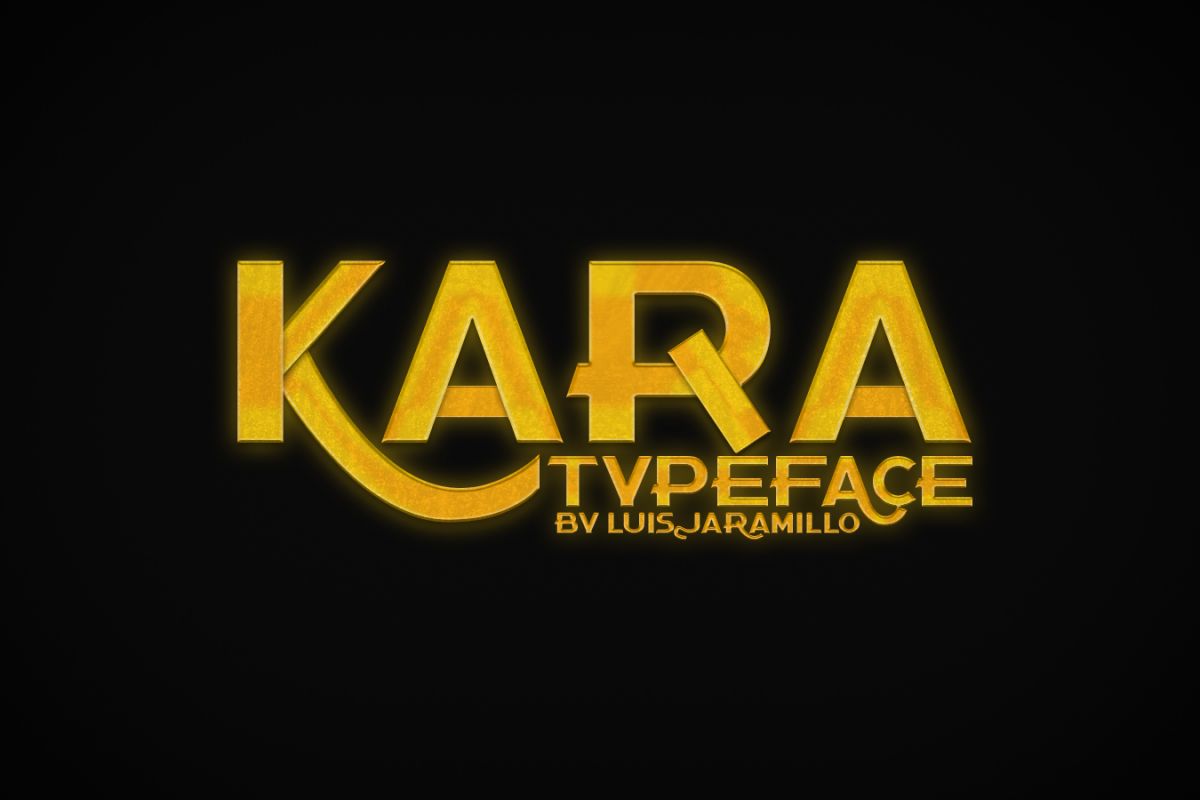
Kara Typeface
From the imaginary world of Luis Jaramillo comes a fairly simple idea that can reflect a funny story, with a typographic font created to be part of any creative idea regardless of gender, age, color or tastes.
Ready to be used in different illustrations, photographs, or arts.
Desde el mundo imaginario de Luis Jaramillo llega una idea bastante sencilla pero que puede reflejar una divertida historia, con una fuente tipográfica creada para formar parte de cualquier idea creativa sin importar el género, edad, color o gustos.
Lista para ser usada en distintas ilustraciones, fotografías, o artes.